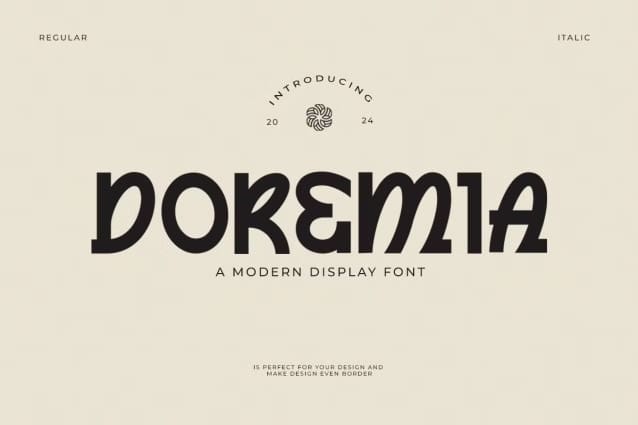
Doremia Display Font
Doremia Display Font is Modern Display Font with experimental style look modern, fun, and experimental display font. Looks like made with a strong gesture. A bit constructive with cursive elements. use this font for anything beauty place for your logo, headline, cover book, magazine and many more